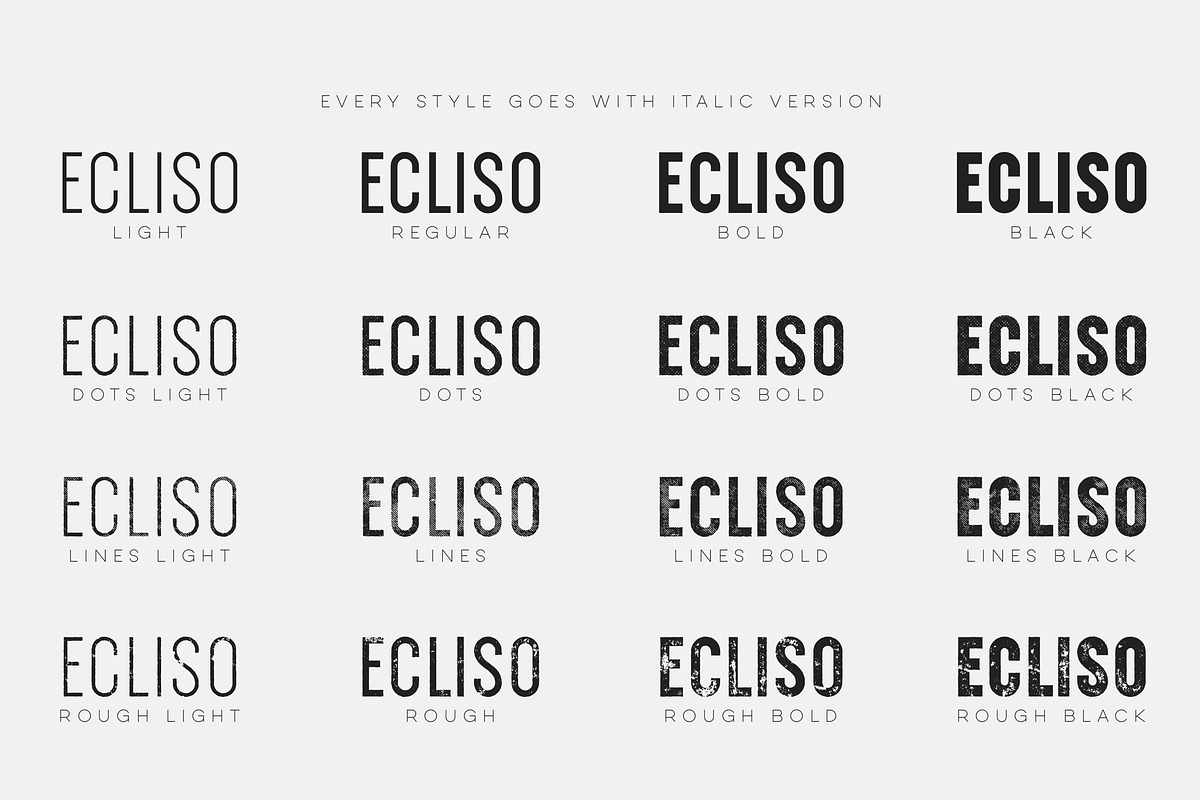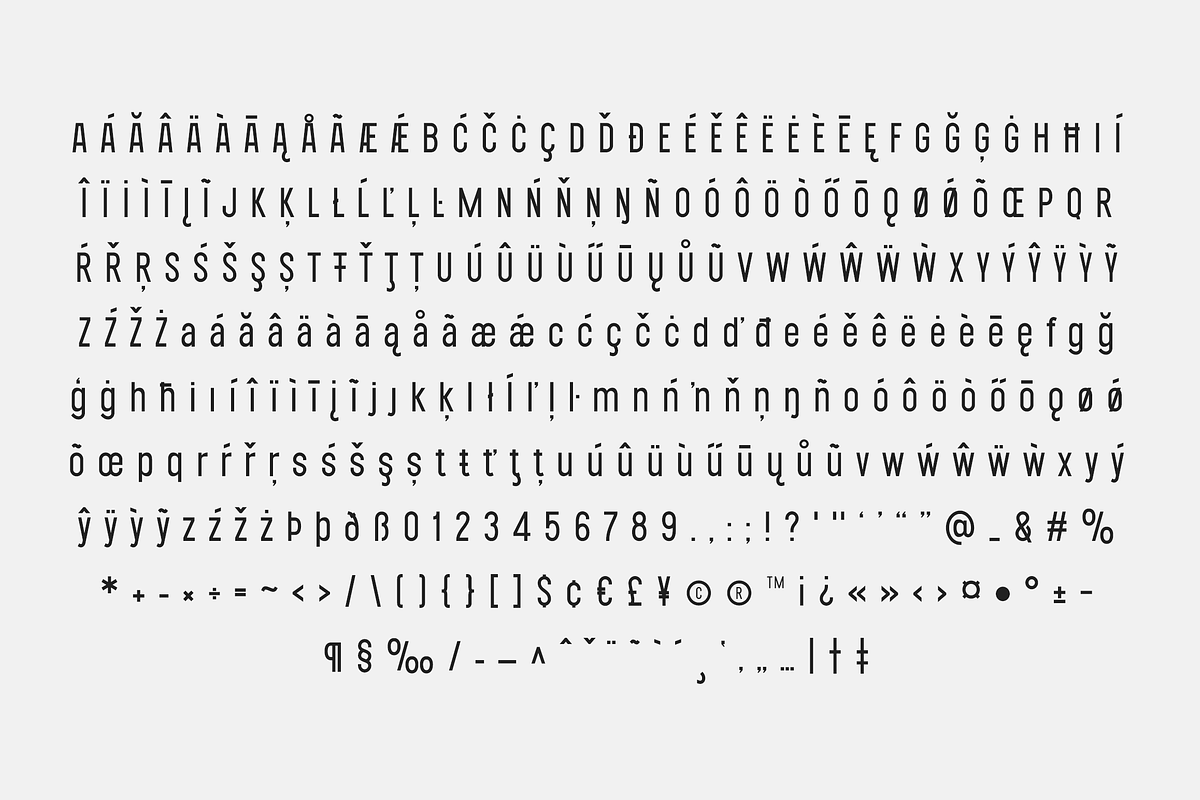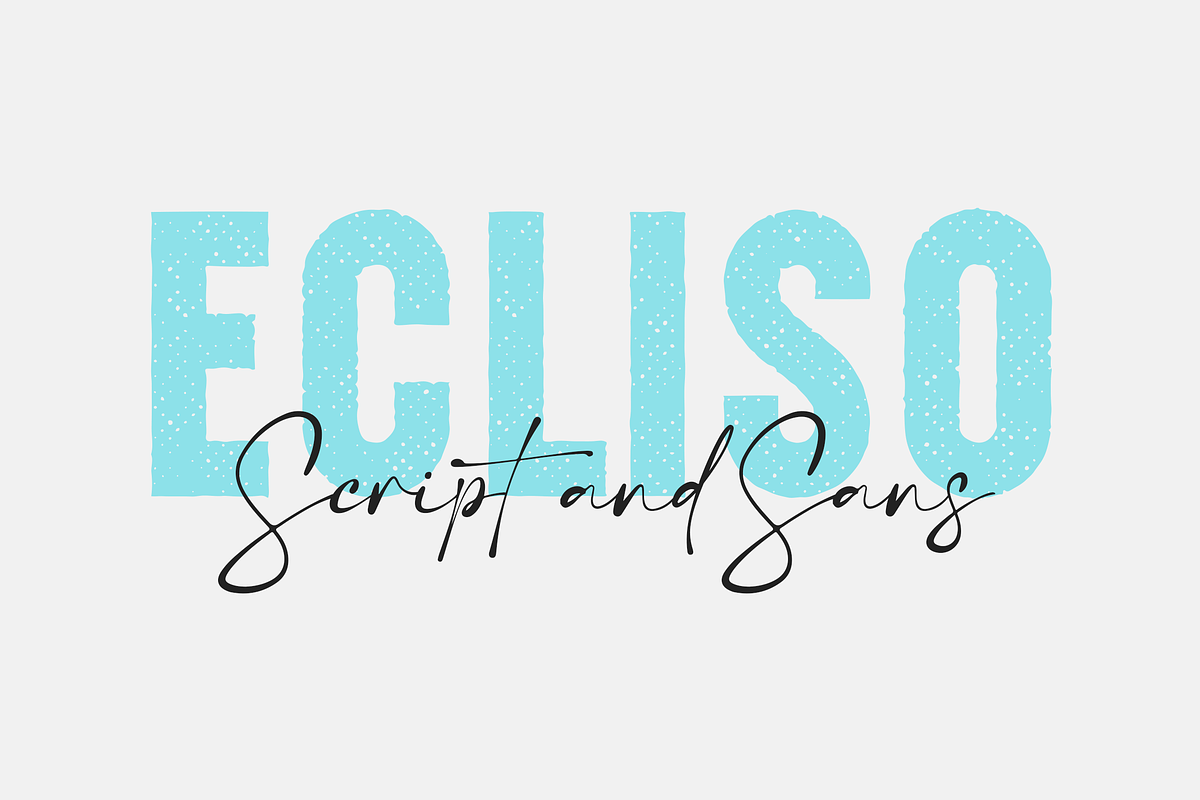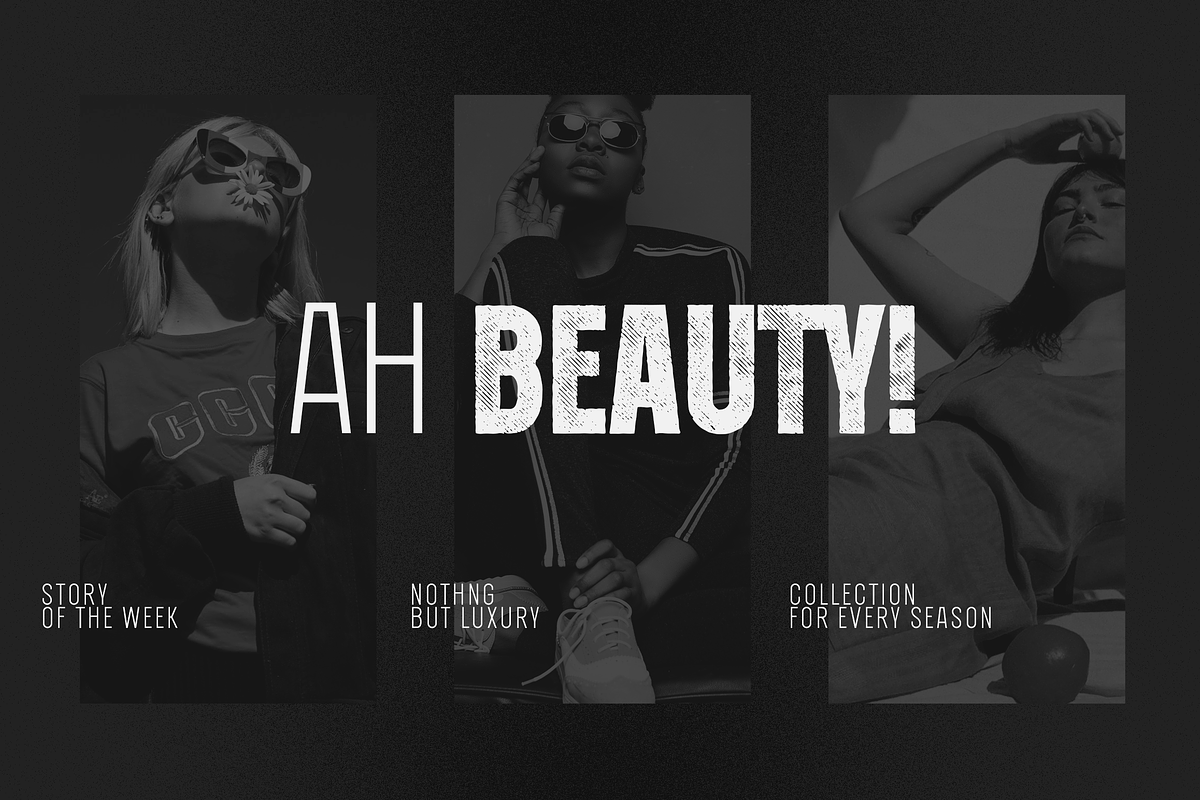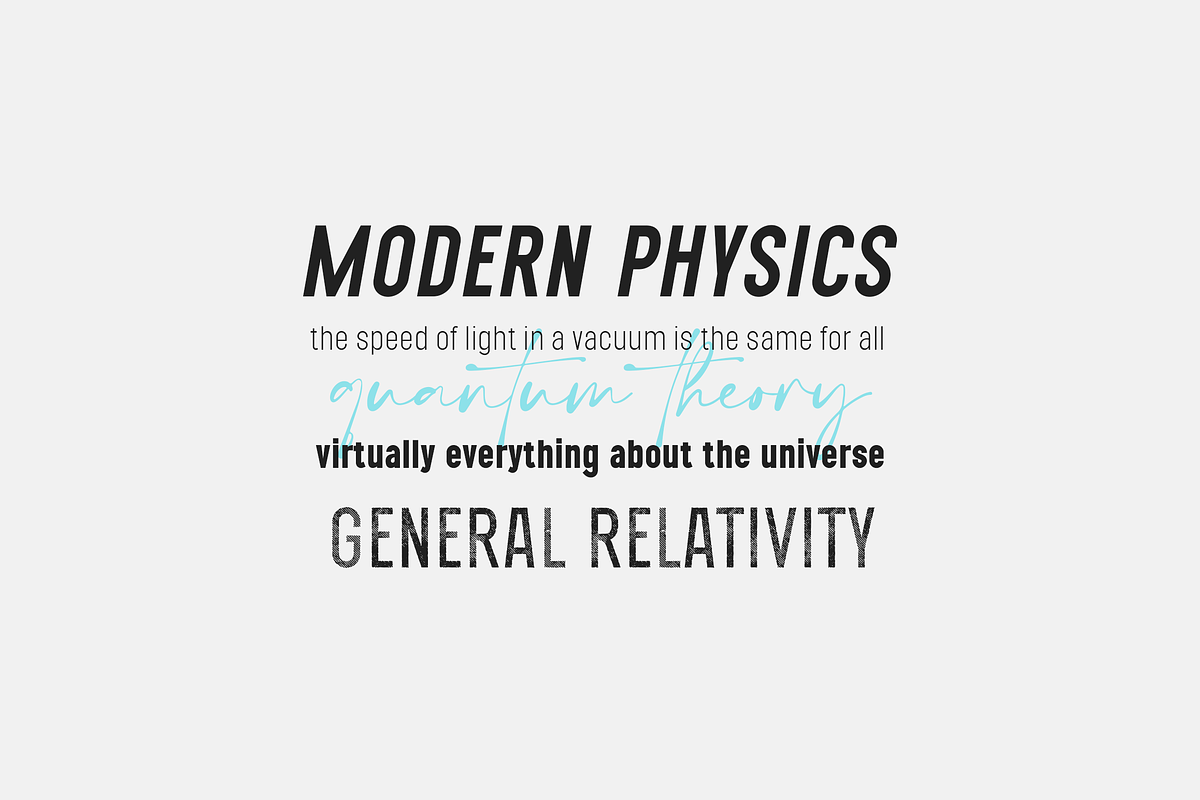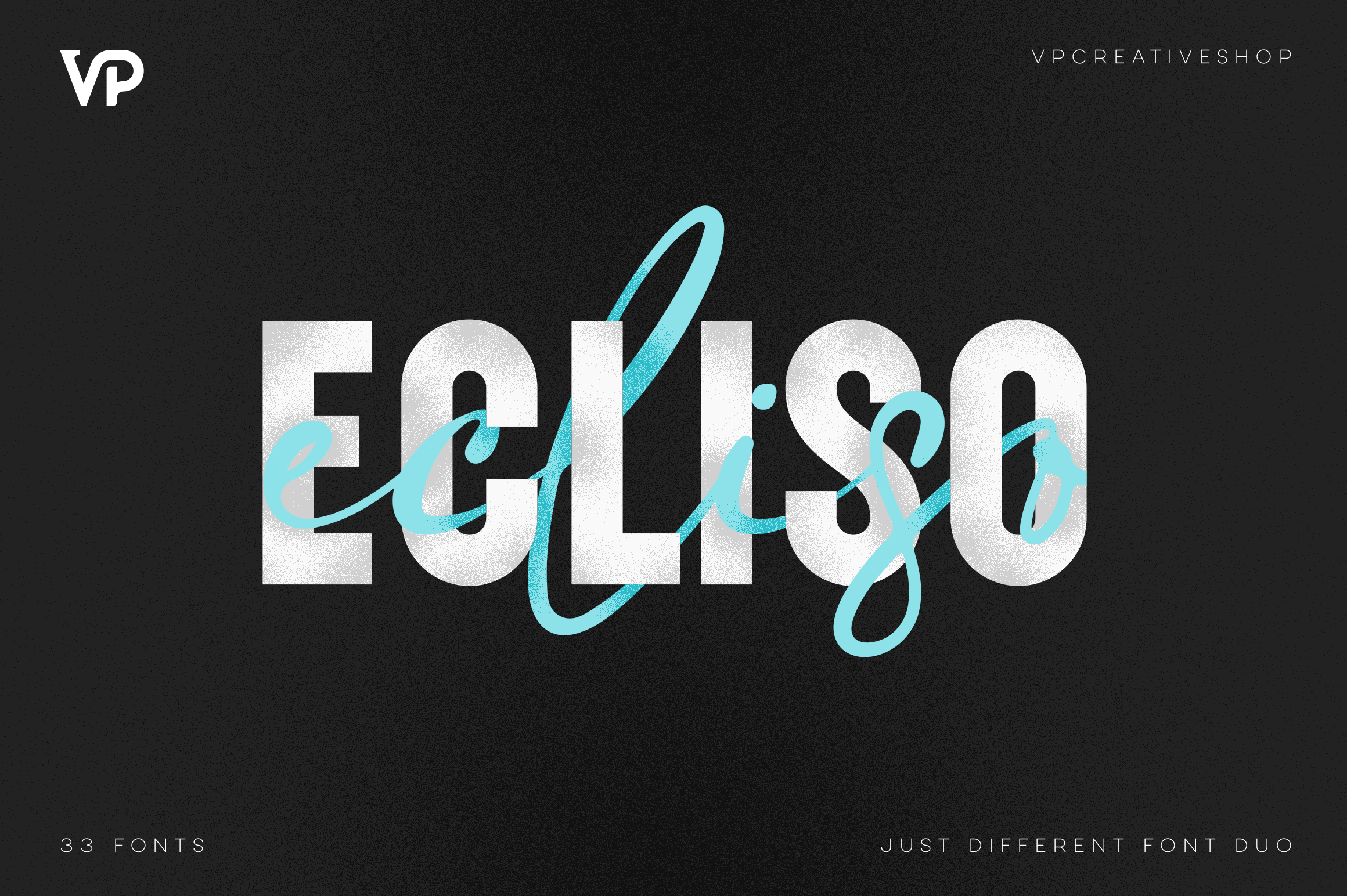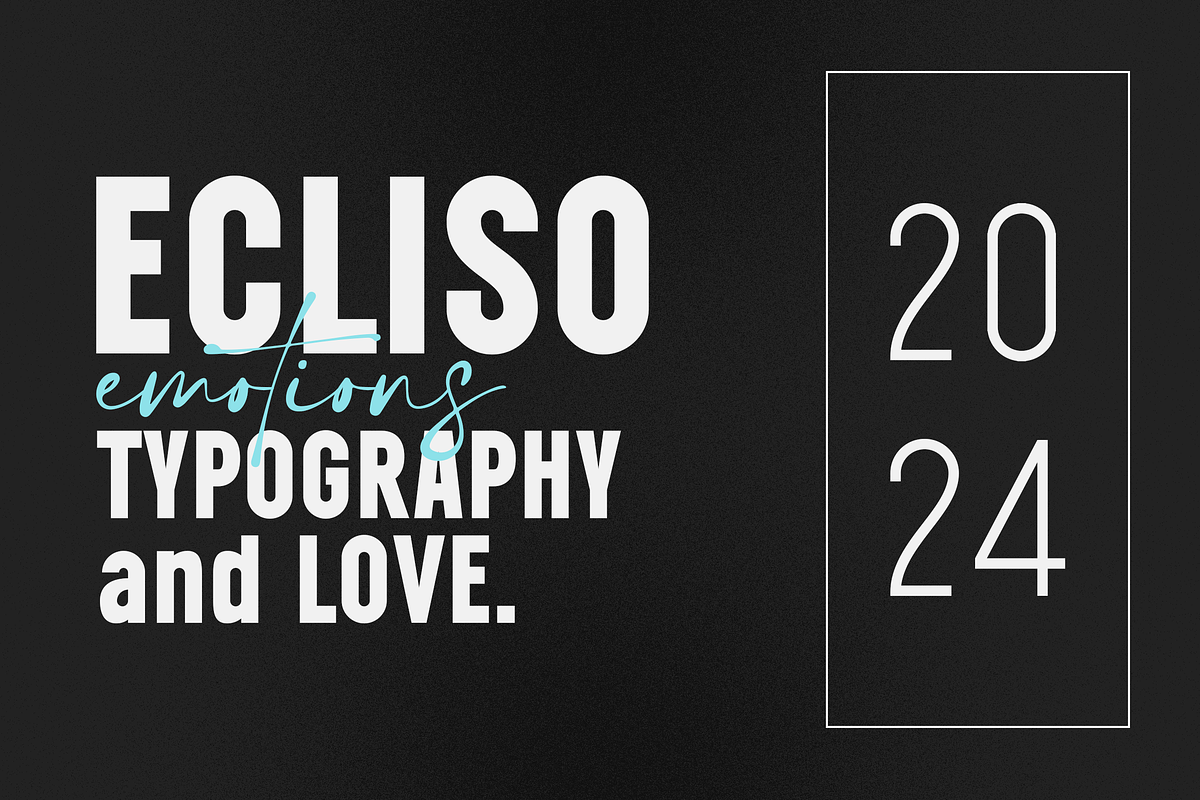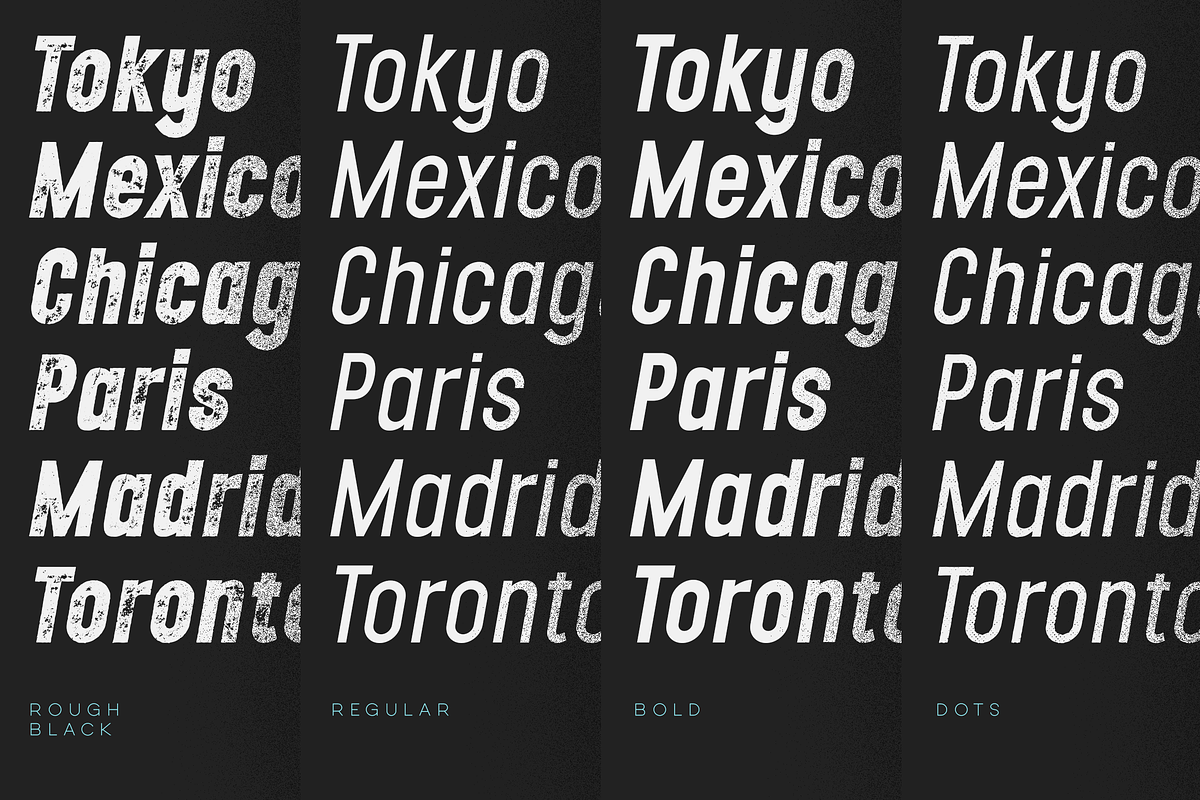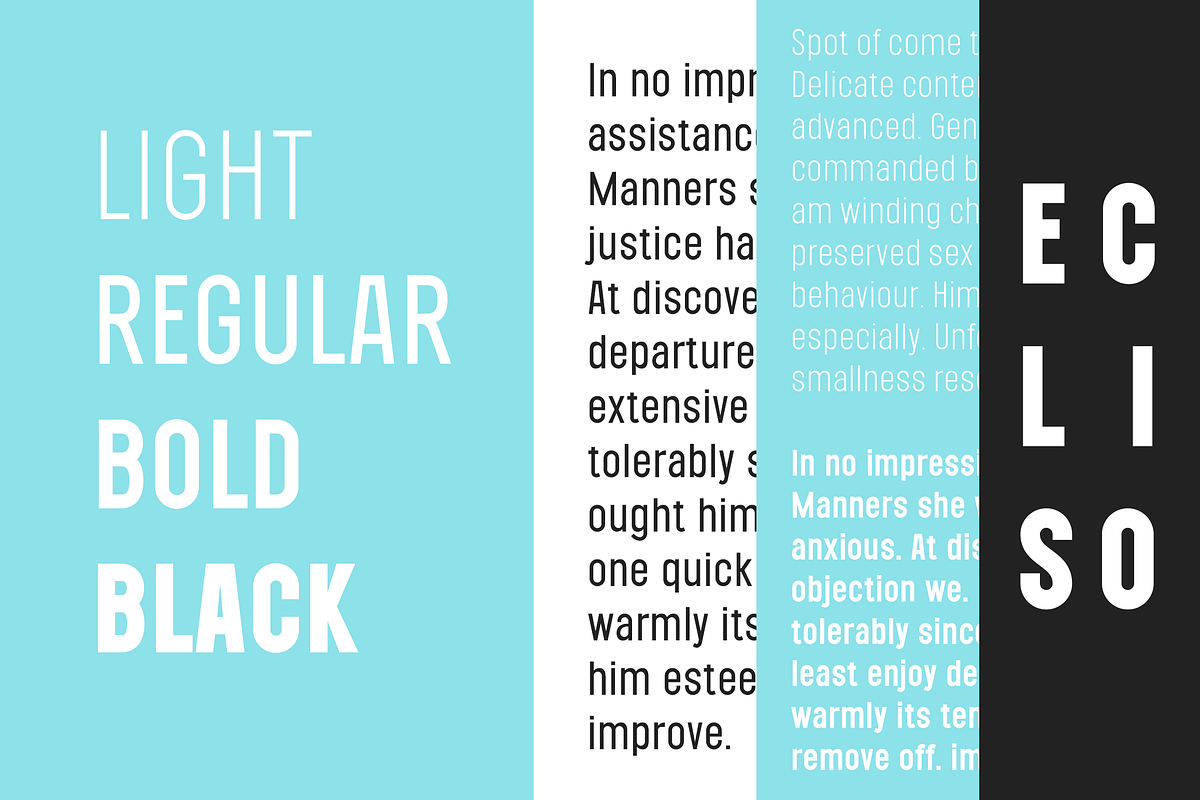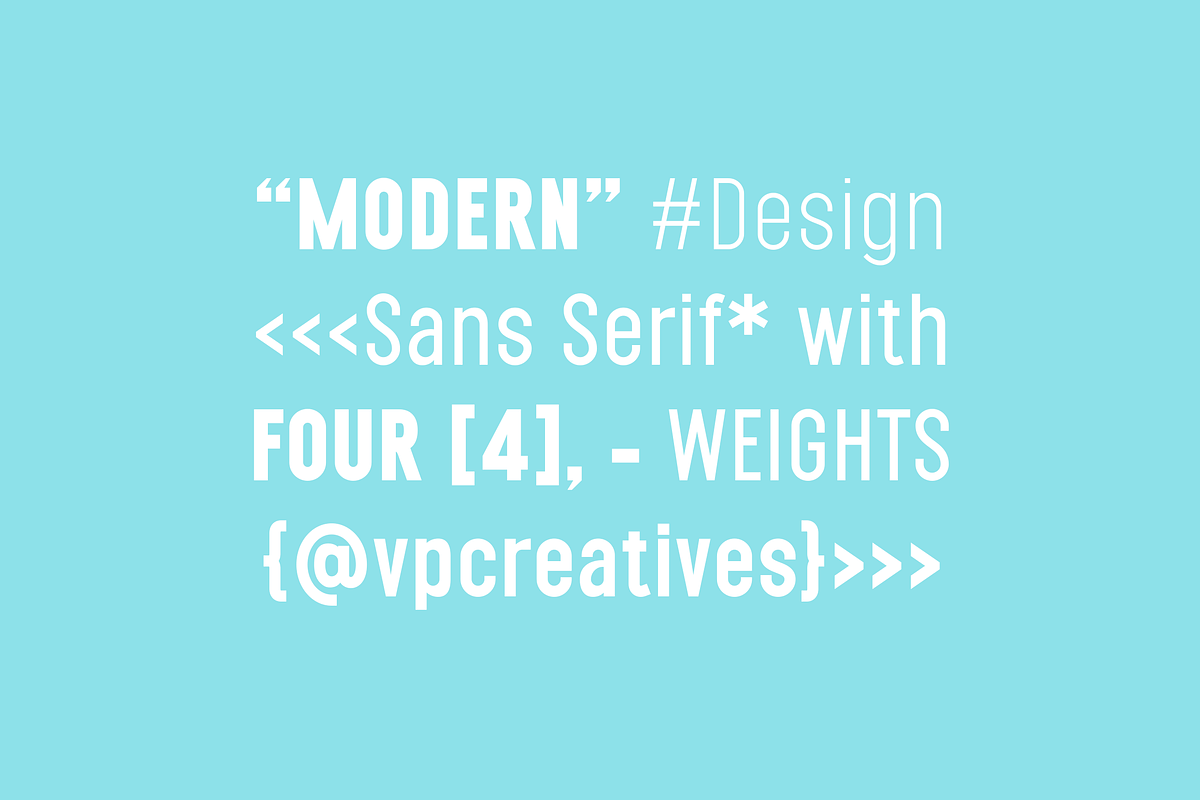
Meet Ecliso, the perfect blend of elegance and versatility designed to bring your projects to life! This dynamic font duo includes a sleek sans serif and a stylish script, crafted to complement each other flawlessly. Ecliso is your go-to choice for any creative endeavor, whether it's for digital media, print, branding, or web design.
Features of Ecliso:
Four Weights: From bold and impactful to light and subtle, Ecliso’s sans serif offers four distinct weights to suit any need.
Unique Variants: Add a touch of personality with rough, dotted, lined, and italic versions, ensuring your text stands out with character.
Stunning Script: The script version of Ecliso brings a handwritten charm, perfect for adding a personal touch to your work.
Multilingual Support: With support for 87 languages, Ecliso ensures your message is clear and beautiful, no matter the audience.
Why Choose Ecliso?
Versatility: Whether you're designing a logo, creating a poster, or crafting a website, Ecliso provides the flexibility you need.
Cohesion: The seamless integration of sans serif and script styles offers a cohesive look, making your designs effortlessly sophisticated.
Ease of Use: Ecliso’s variety of weights and styles simplifies the design process, giving you more time to focus on creativity.
Branding: Build a strong, consistent brand identity with Ecliso’s versatile typefaces.
Invitations and Stationery: Add elegance and a personal touch to wedding invitations, business cards, and more.
Digital and Print: From websites to brochures, Ecliso shines across all media.
Bring your creative vision to life with Ecliso, the typeface duo that combines modern style with timeless elegance. Whether you're a seasoned designer or just starting out, Ecliso is the perfect addition to your font library. Transform your projects today with the charm and versatility of Ecliso!